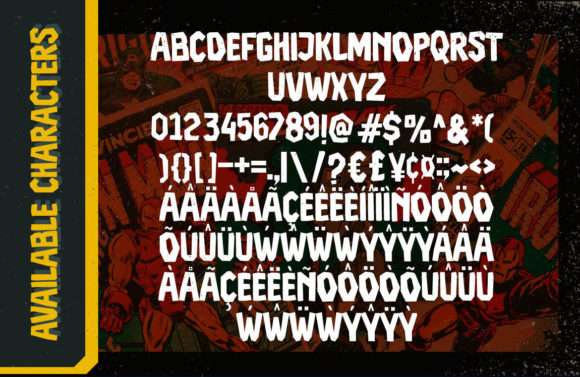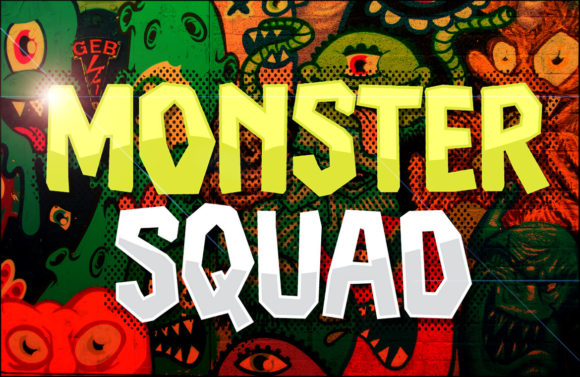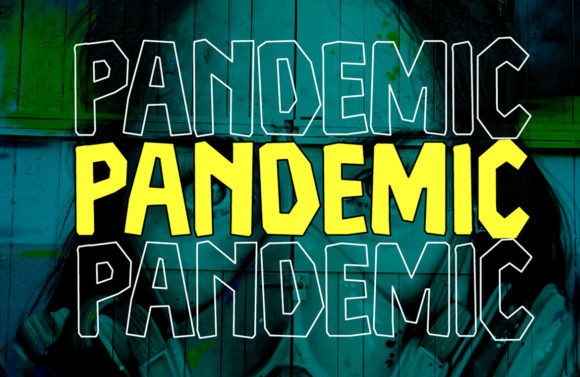
Discover the Bold and Playful World of Acute Font
Are you on the hunt for a font that adds a dash of fun and playfulness to your designs? Look no further than Acute Font, a cool, bold, and thick lettered display font that’s perfect for a variety of creative projects. In this article, we’ll dive into the world of Acute Font, exploring its features, uses, and benefits for designers and crafters.
What is Acute Font?
Acute Font is a modern, eye-catching display font that’s designed to make a statement. Its bold and thick lettering gives it a sturdy, confident look that’s sure to grab attention. The font’s playful and energetic vibe makes it an excellent choice for designs that require a fun and youthful touch.
Key Features of Acute Font
- Bold and Thick Lettering: Acute Font’s most distinctive feature is its bold and thick lettering, which gives it a robust and confident appearance.
- Playful and Energetic: The font’s playful and energetic vibe makes it perfect for designs that require a fun and youthful touch.
- Highly Versatile: Acute Font is highly versatile and can be used for a wide range of creative projects, from cartoon-related designs to children’s games and more.
- Easily Readable: Despite its bold and thick lettering, Acute Font is easily readable, making it an excellent choice for headlines, titles, and other display text.
Uses of Acute Font
Acute Font is an incredibly versatile font that can be used for a wide range of creative projects, including:
- Cartoon-Related Designs: Acute Font’s playful and energetic vibe makes it an excellent choice for cartoon-related designs, such as animated movies, TV shows, and comics.
- Children’s Games: The font’s fun and youthful touch makes it perfect for children’s games, apps, and educational materials.
- Posters and Flyers: Acute Font’s bold and attention-grabbing appearance makes it an excellent choice for posters and flyers that require a strong visual impact.
- Branding and Logo Design: The font’s unique and memorable appearance makes it an excellent choice for branding and logo design projects.
Benefits of Using Acute Font
So why choose Acute Font for your next creative project? Here are just a few benefits of using this amazing font:
- Adds a Fun and Youthful Touch: Acute Font’s playful and energetic vibe adds a fun and youthful touch to any design.
- Highly Versatile: The font’s versatility means it can be used for a wide range of creative projects.
- Easily Readable: Acute Font’s bold and thick lettering makes it easily readable, even at small sizes.
- Unique and Memorable: The font’s unique and memorable appearance makes it an excellent choice for branding and logo design projects.
In conclusion, Acute Font is an amazing font that’s perfect for designers and crafters looking to add a dash of fun and playfulness to their designs. Its bold and thick lettering, playful and energetic vibe, and high versatility make it an excellent choice for a wide range of creative projects. Whether you’re working on a cartoon-related design, children’s game, or branding project, Acute Font is sure to make a statement.